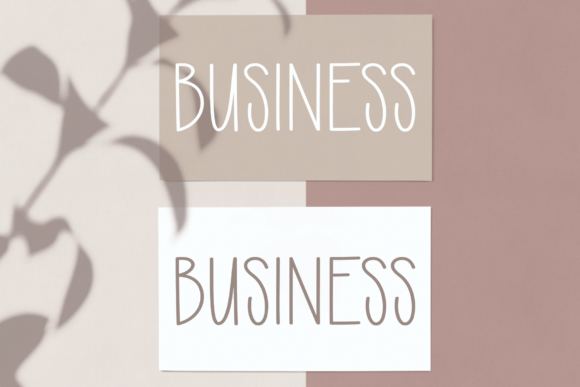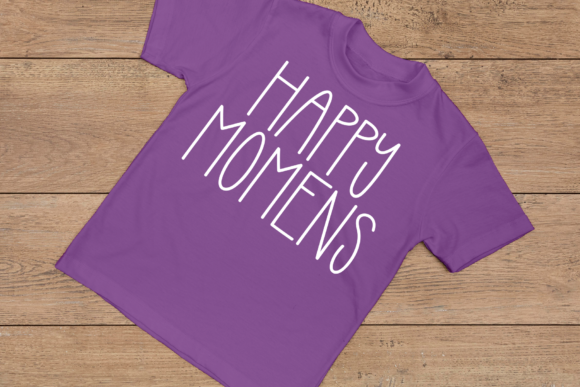
Flower Vintage Font
db-ku.com - Script & Handwritten -- Flower Vintage is a slim and sleek handwritten font that embodies charm and authenticity in every character! It’s a great typeface for projects that need elegant typography!